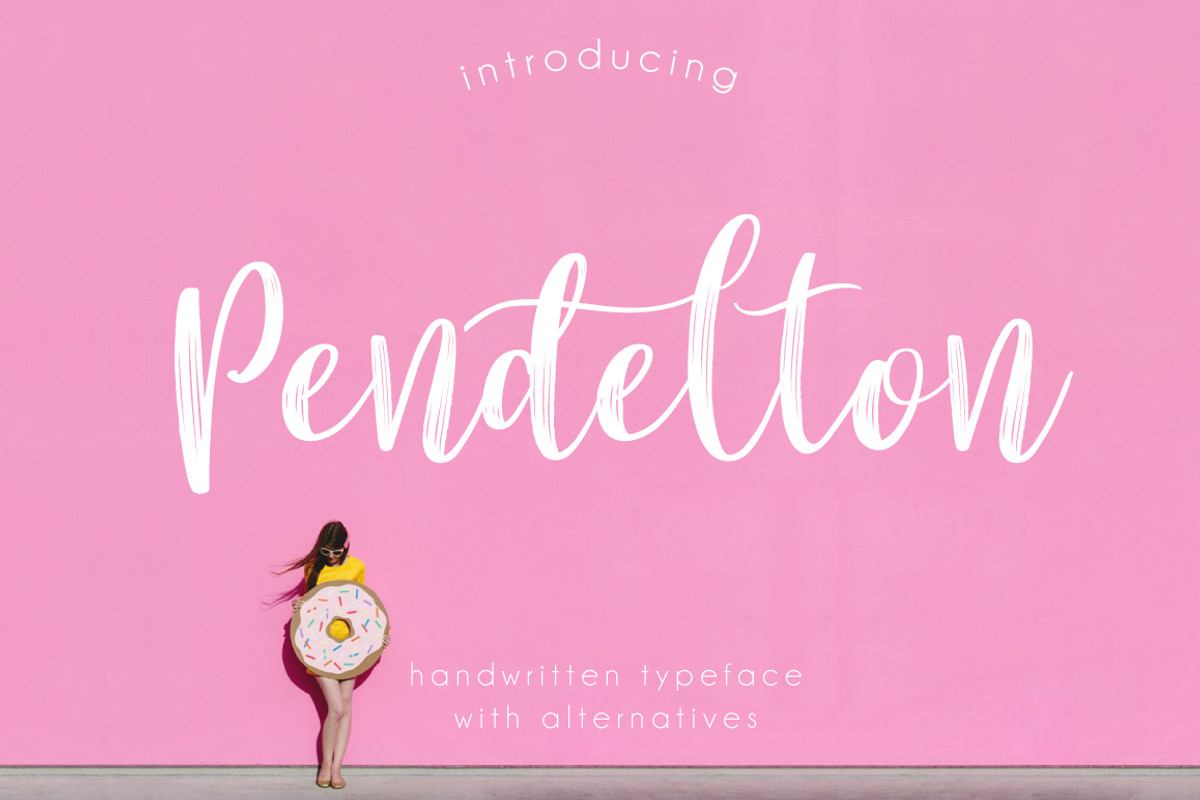
Pendelton Script Font Free Download is a vintage-inspired handwritten typeface that blends classic charm with modern versatility. With its flowing strokes, retro curves, and natural ink-like texture, Pendelton is perfect for logos, nostalgic branding, wedding invitations, packaging, and handcrafted product labels.
This script font captures the warmth of traditional sign painting while offering smooth readability and elegant styling. Whether you're creating a rustic café logo or a heartfelt greeting card, Pendelton adds authenticity and character to your work.